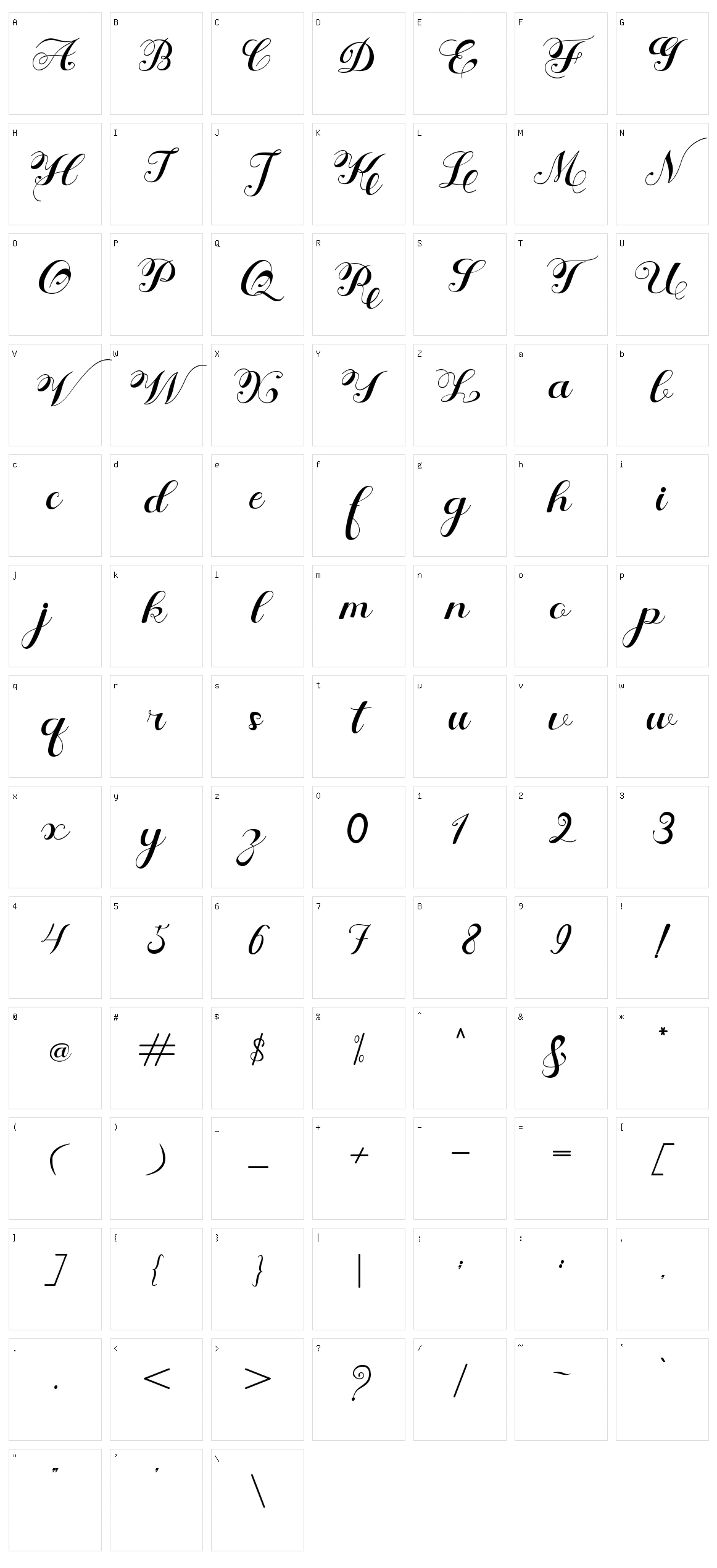
The free font Fharida is carefully designed by Get Studio, showcasing a thoughtful balance of creativity and usability and falls under the Script font style. When you download the ZIP file, it contains only 116 KB of font files, making it lightweight and quick to download. Please review the license details below to understand permitted usage and distribution rights. If license information is not available, we recommend using this font for personal projects only or contacting the author directly for commercial usage permissions.